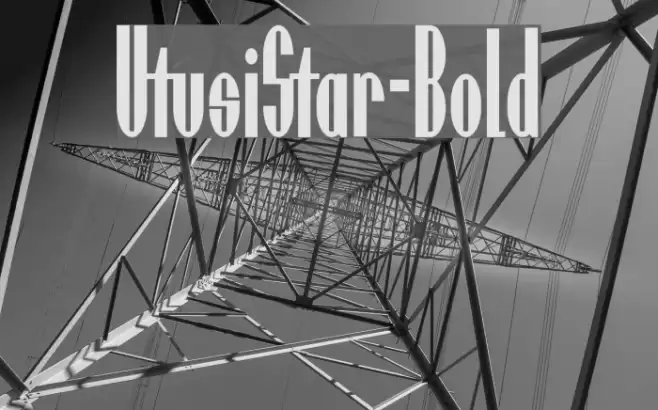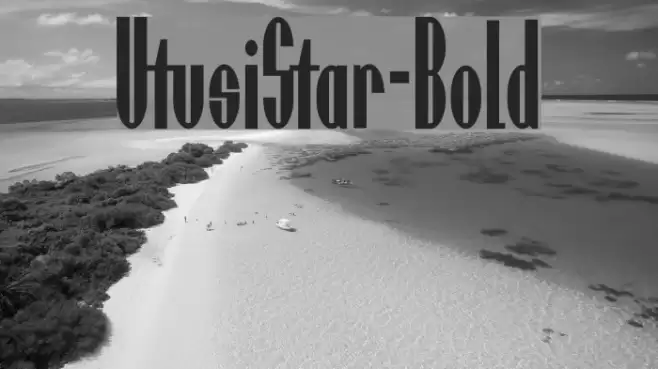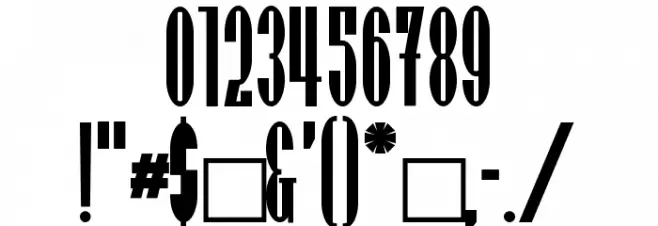
UtusiStar-Bold Font
UtusiStar-Bold Description
This font features a bold and striking design with tall, narrow characters that create a strong visual impact. The uppercase letters are particularly elongated, giving the font a unique and modern appearance. The lowercase letters maintain a similar style, ensuring consistency throughout the typeface. The numbers are equally bold and tall, complementing the overall aesthetic. Special characters are included, adding versatility to the font's usage. The high contrast between thick and thin strokes enhances readability while maintaining a decorative flair.
A bold, modern font with tall, narrow characters and high contrast from Uncategorized fonts.
- Proposed Projects: Ideal for poster designs, branding projects, and headlines where a strong visual impact is desired.
- Character Spacing: Tight